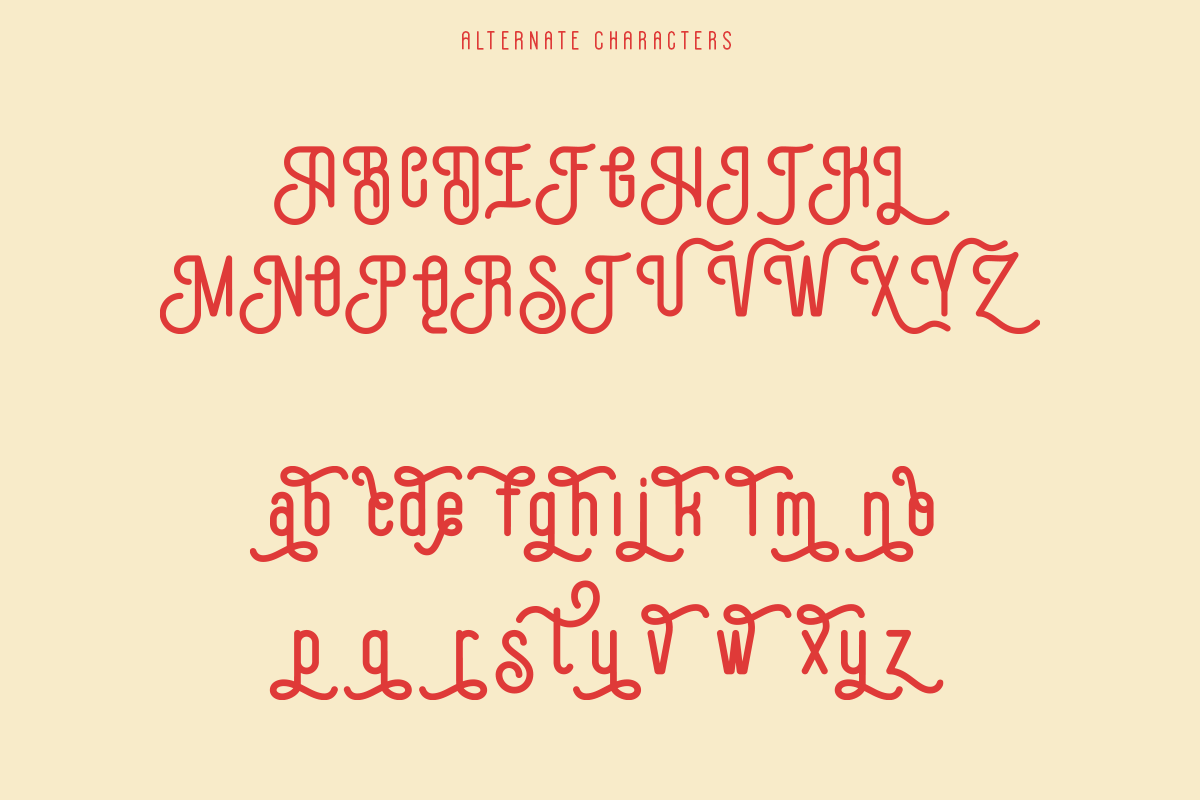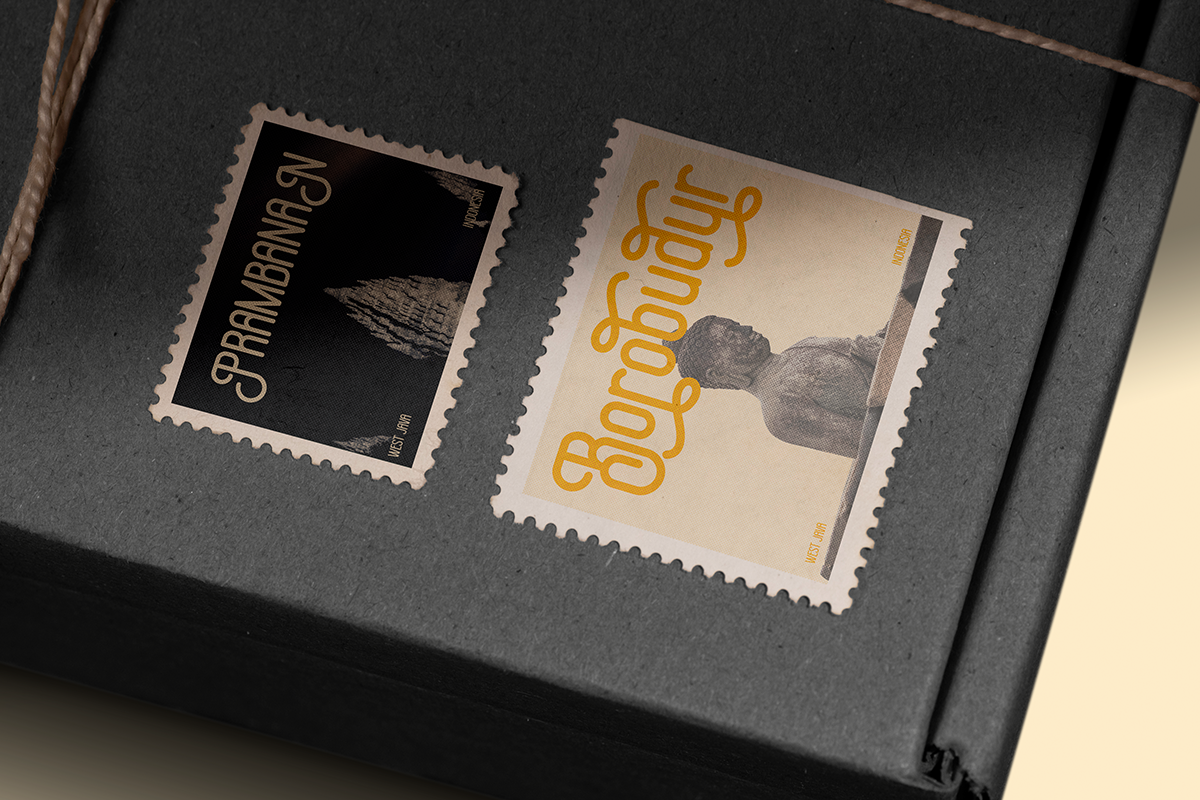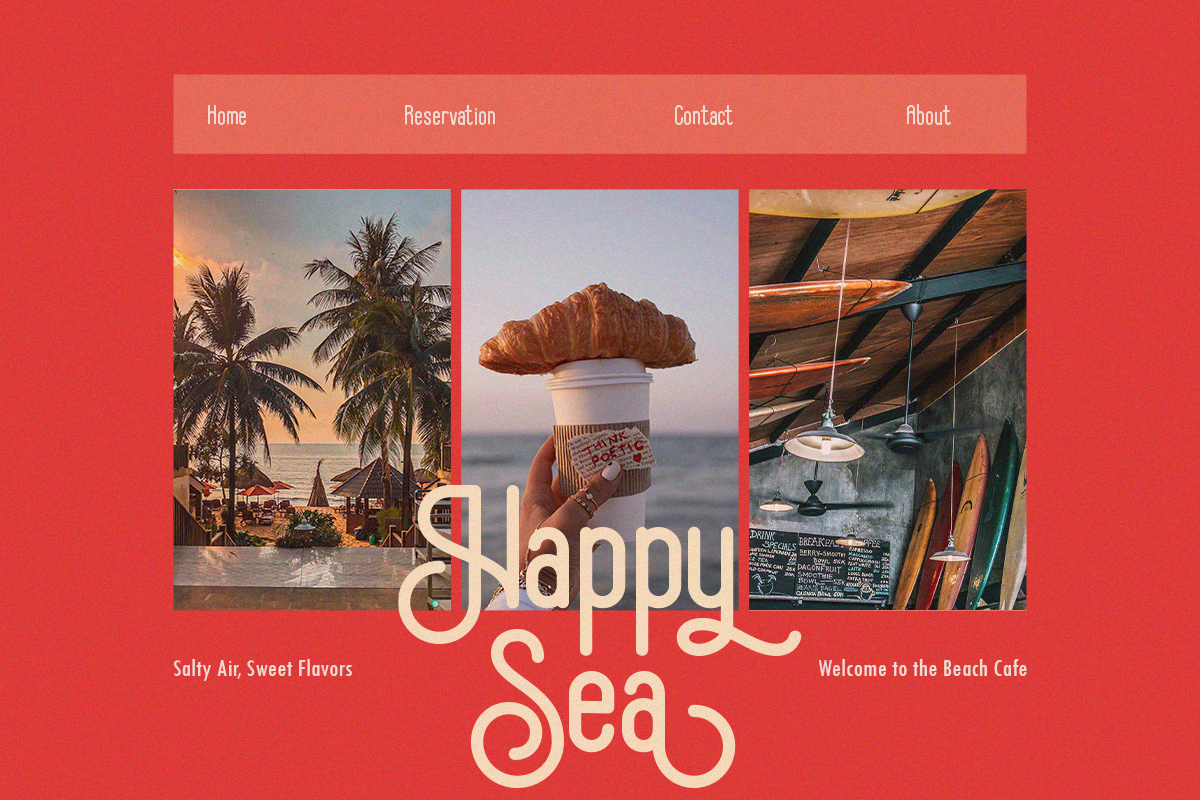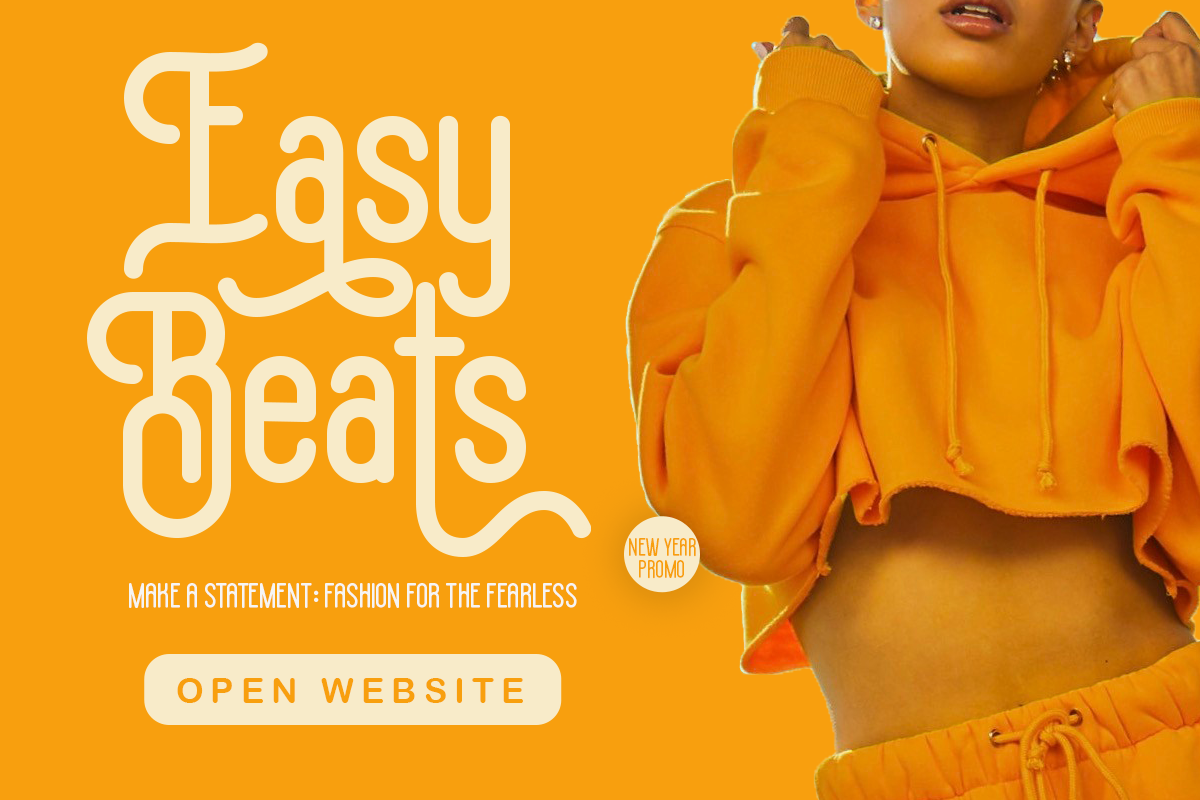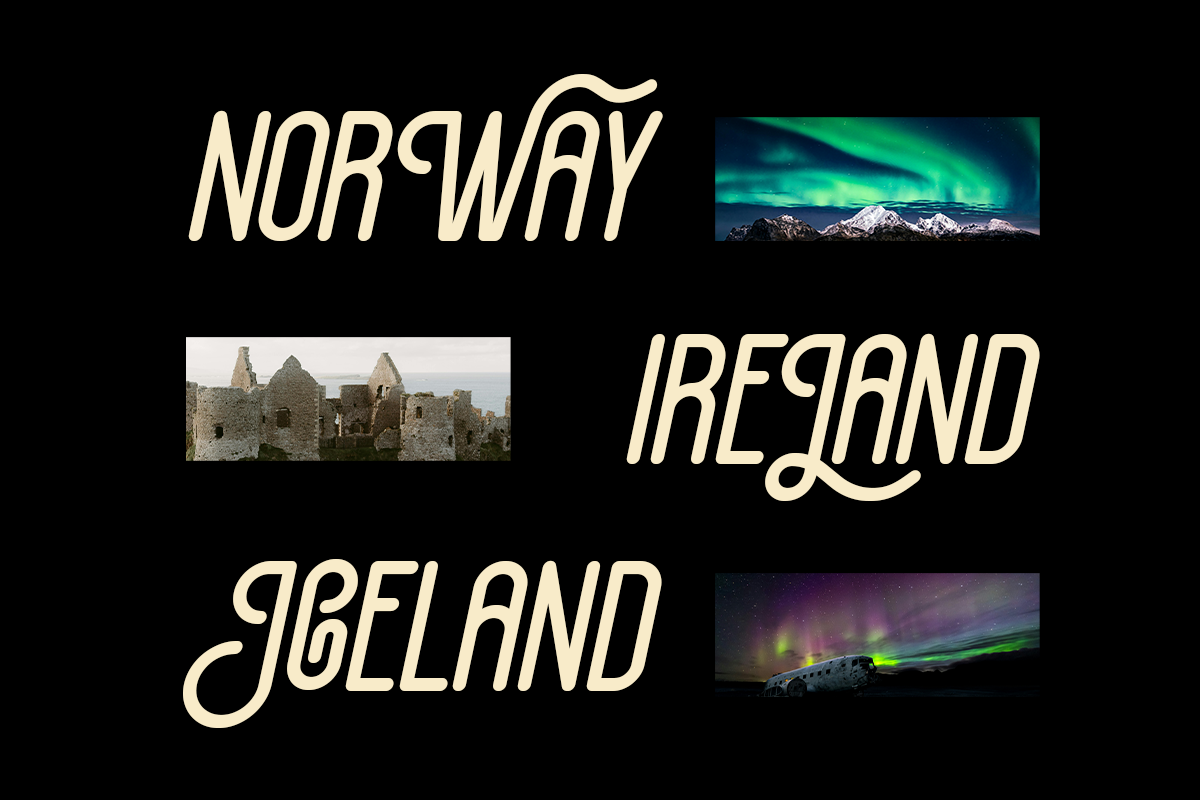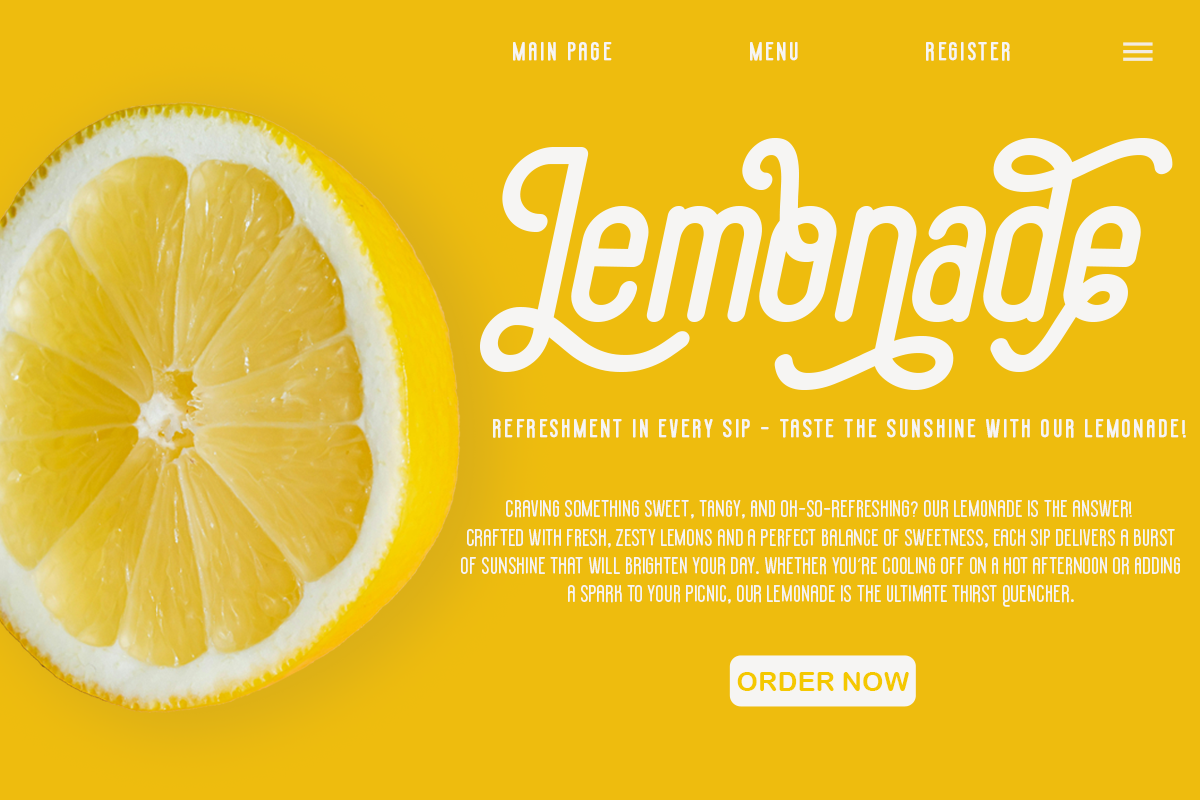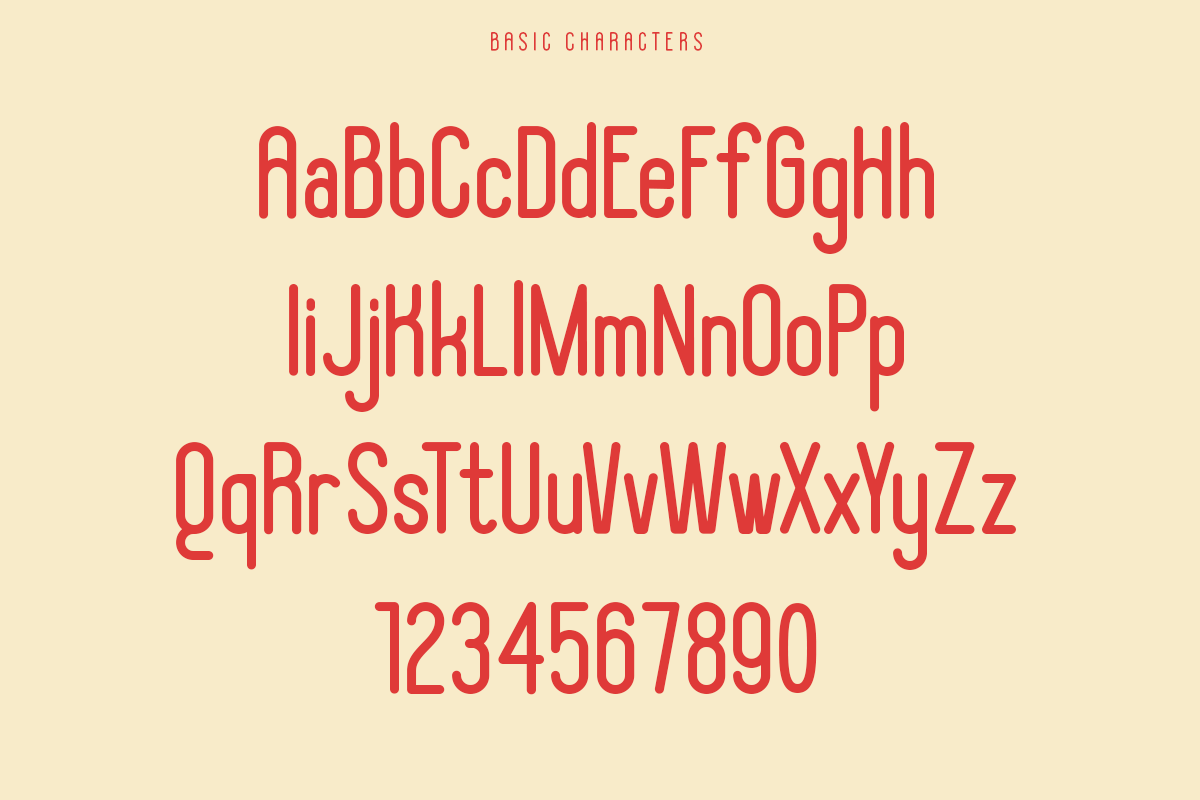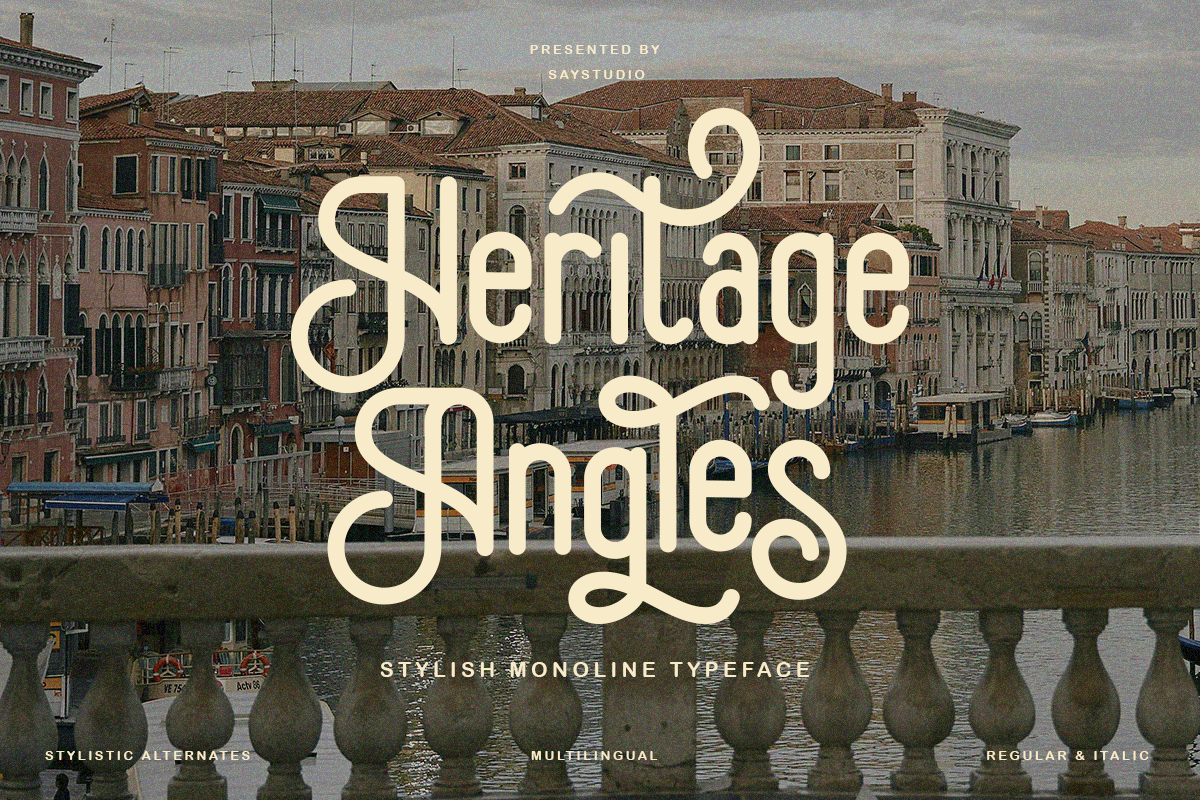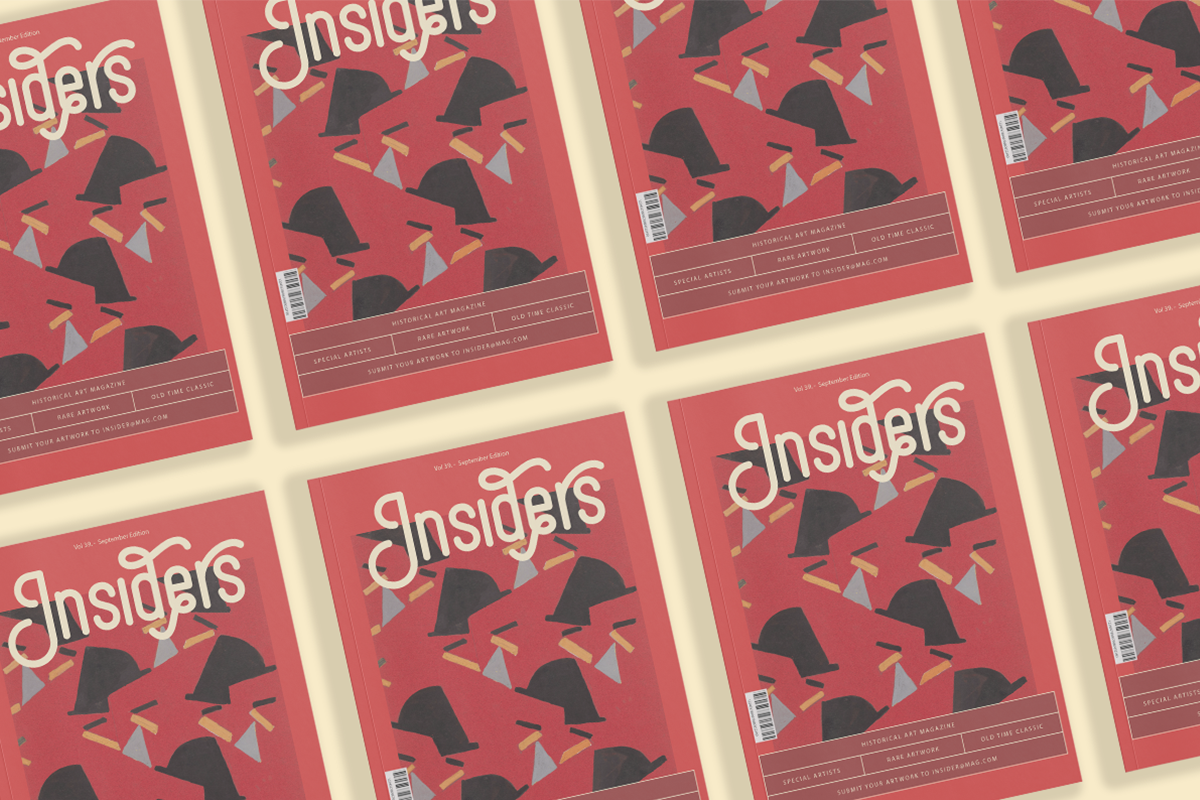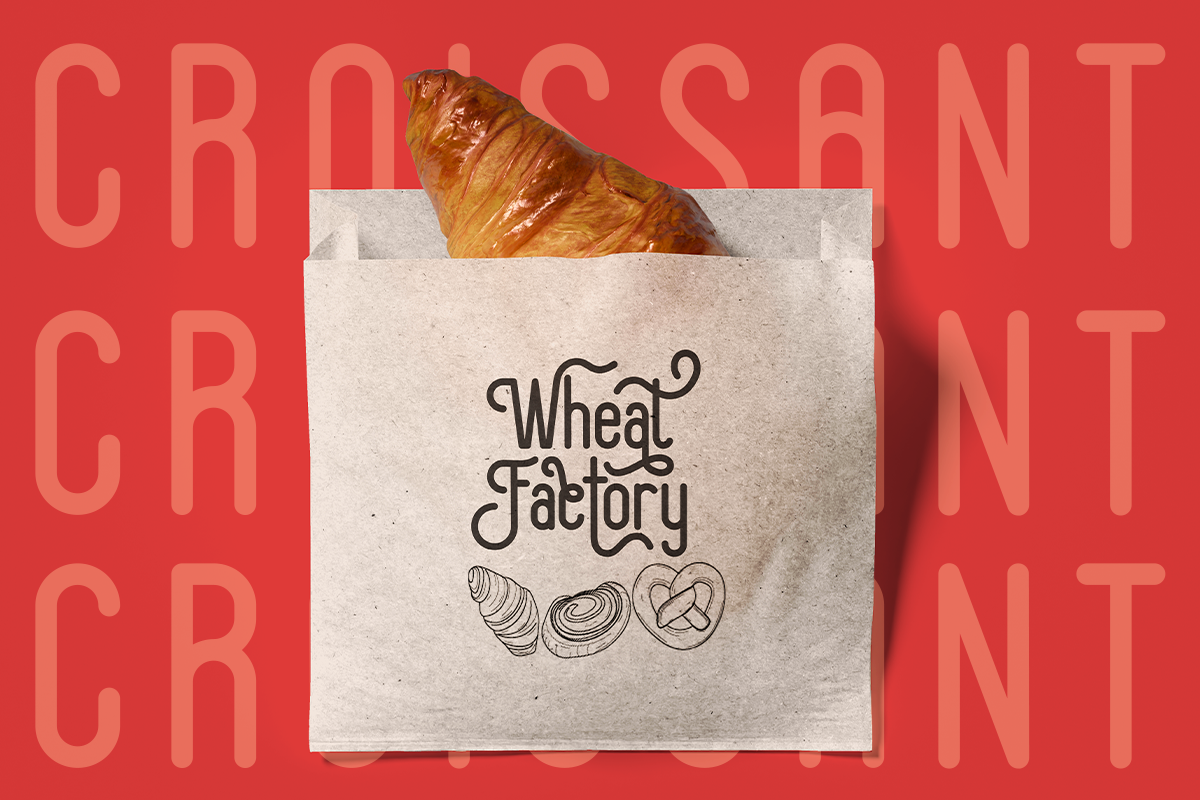
Heritage Angles
Heritage Angles is rounded sans serif fonts with charming alternate arch. You can use it to conveying the perfect design balance between modern and easy going. Their round shape can create a friendly impression but they also appear professional. Heritage Angles is a perfectly choice for any creative endeavor, chic, lifestyle design such as logos, advertisements, watermark on photography, stationery, branding project, display and magazine, invitation, corporate brand, product design, label, business project and many other project with elegant touch.
- Alternates Character
- Multi language Support